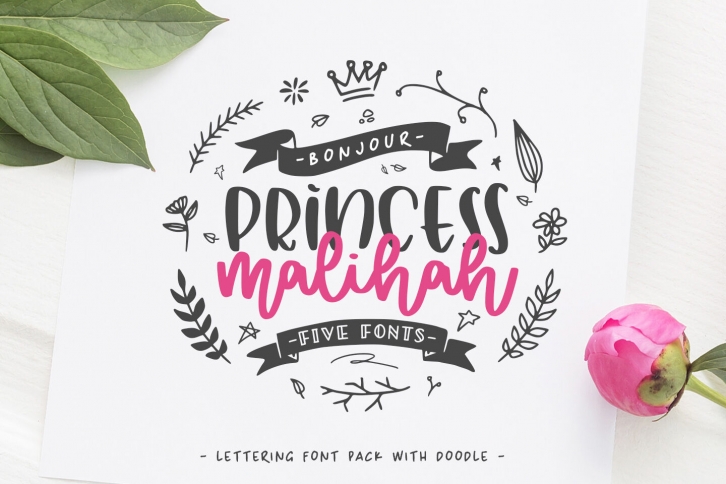
introducing
MALIHAH
- Lettering Font Pack-
MALIHAH is great for lettering, quotes, wedding card, logo, t-shirt design, mug, interior ornament, tote bag design, card, banner, social media, and anything craft project.
It came with 4 different font with extra doodle font.
Let's create your own quote to be beauty lettering art.